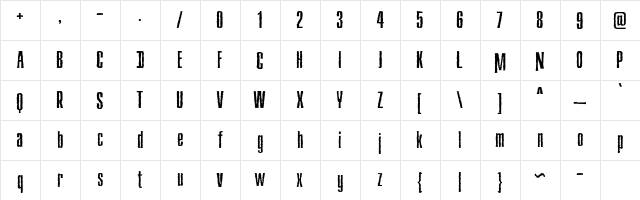
Deaffont Demo Regular
| Foundry | Kustomtype |
| Designer | Kustomtype |
Design Context for Deaffont Demo Typeface
Deaffont Demo offers clean, dependable letterforms without strong stylistic allegiance, making it a practical choice for designers who need flexibility.